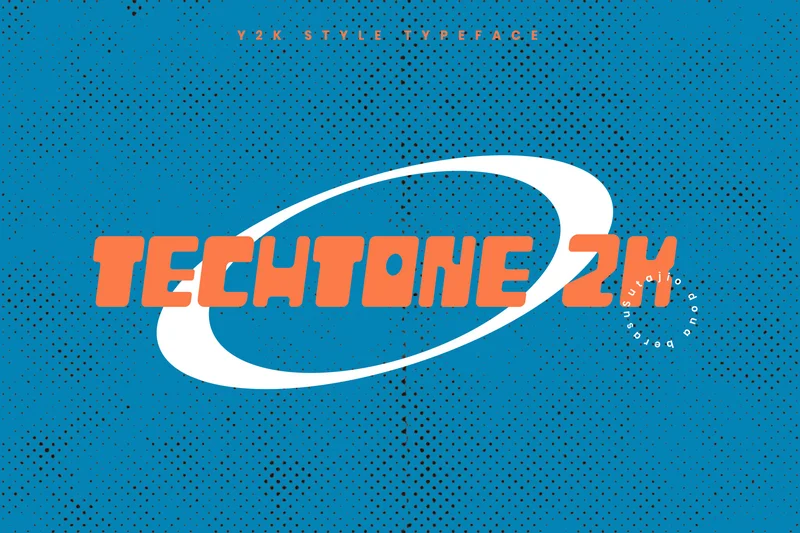
Techtone2K
The font shown in the image appears to be “TechTone 2K,” a typeface inspired by the Y2K style. With its futuristic and tech-inspired design, it captures the essence of the early 2000s digital and technological aesthetic. The bold, angular letterforms and the sharp, clean lines make it perfect for projects that need a modern, tech-forward, or retro-futuristic feel. It’s ideal for branding, logos, and designs related to technology, digital culture, and anything that embraces a futuristic vibe.